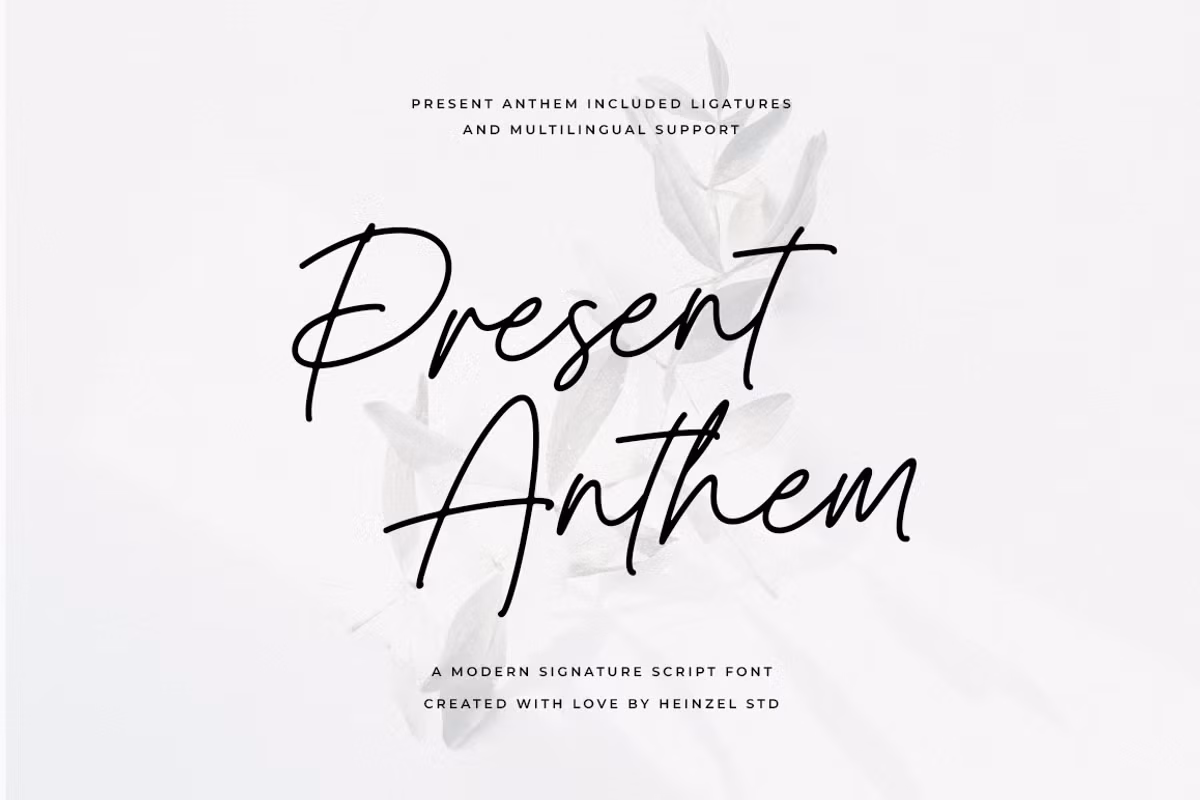
Present Anthem | Signature Font Free Download is a sophisticated and elegant signature script typeface that exudes a sense of professionalism and authenticity. With its smooth, flowing strokes and graceful curves, this font is perfect for luxury branding, personal logos, invitations, business cards, and social media signatures.
Present Anthem captures the beauty of natural handwriting with a touch of elegance, making it ideal for designs that need a personal, yet refined feel. Whether you're working on high-end branding, wedding stationery, or a stylish signature for your personal projects, this font adds sophistication and a personal touch.
The font includes uppercase and lowercase letters, numerals, punctuation, and multilingual support. It works beautifully in both print and digital formats, offering versatility for all kinds of creative designs.